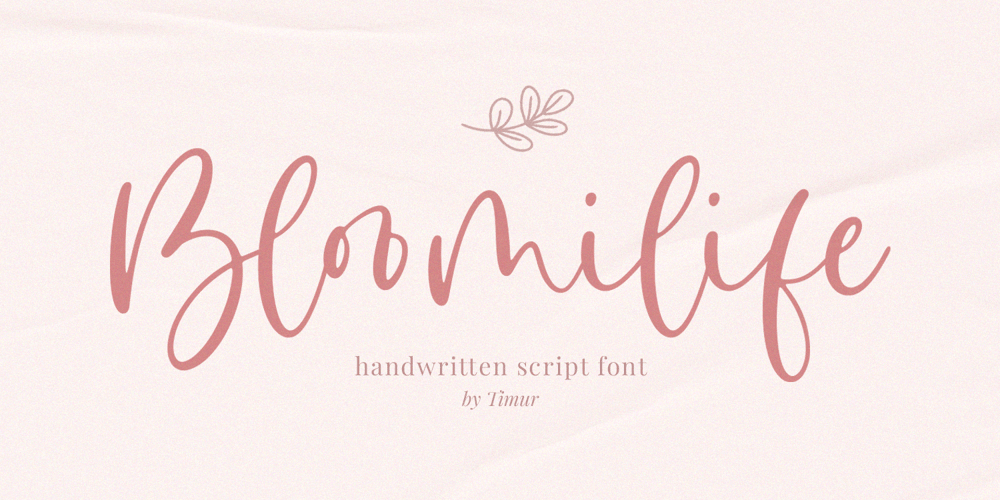
Bloomilife Font Family was designed by Wara Sigit Tri Pamungkas and published by Timurtype. Bloomilife contains 1 styles and family package options. Introducing by Timur typeProudly Present, Bloomilife A Handwritten Script Font Bloomilife is perfect for product packaging, branding project, megazine, social media, wedding, or just used to express words above the background. Bloomilife also multilingual support.Embelish your designs with our original fonts. Enjoy the font ๐ Thank you!